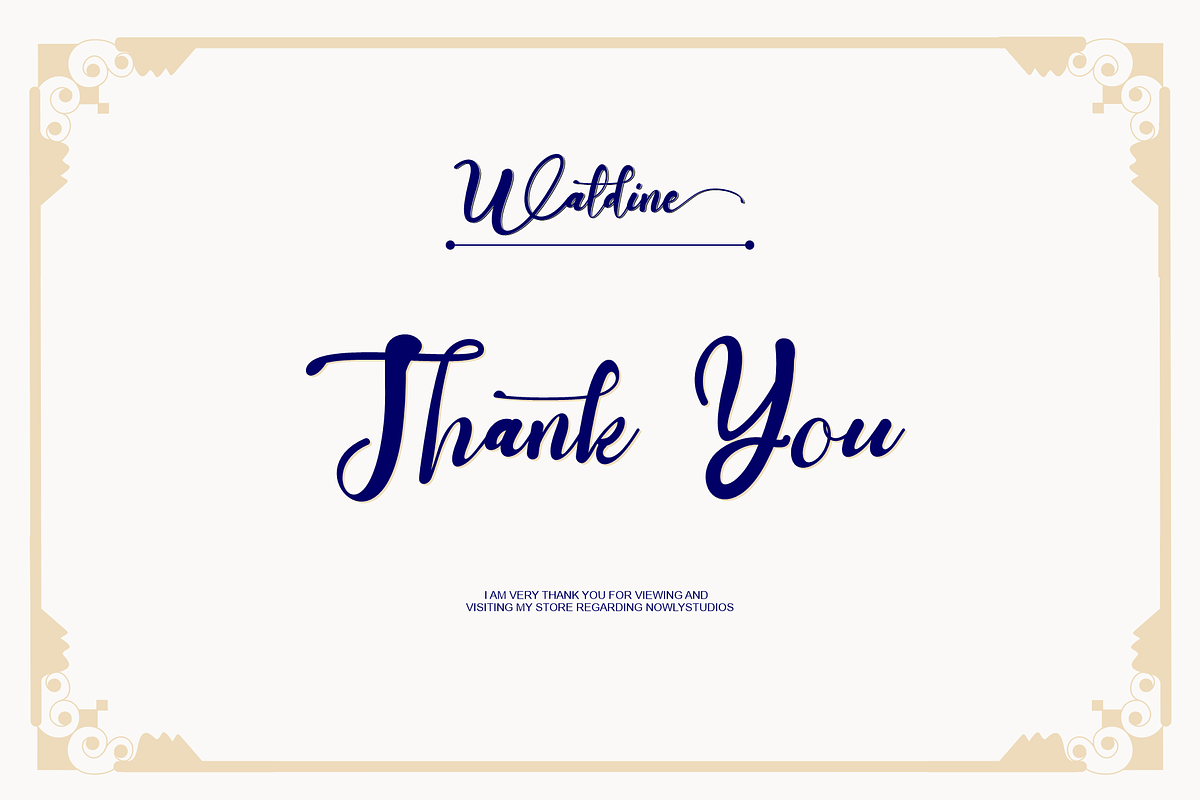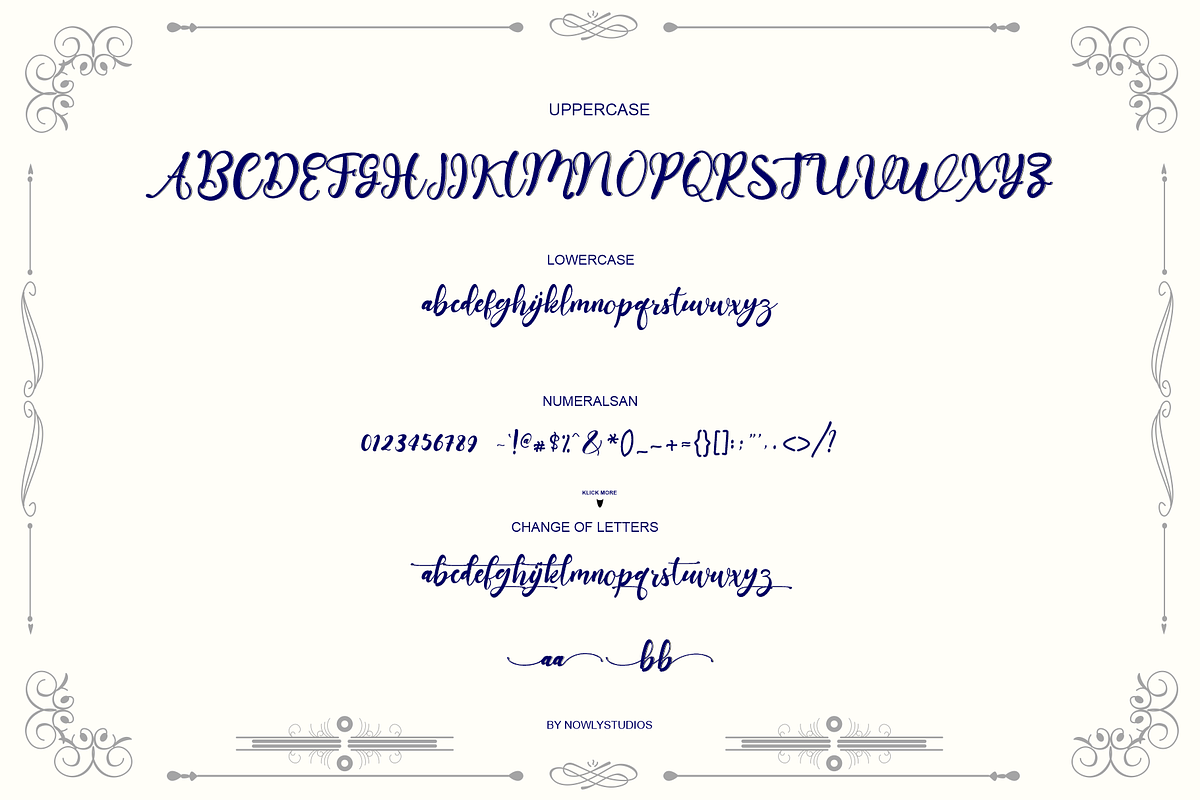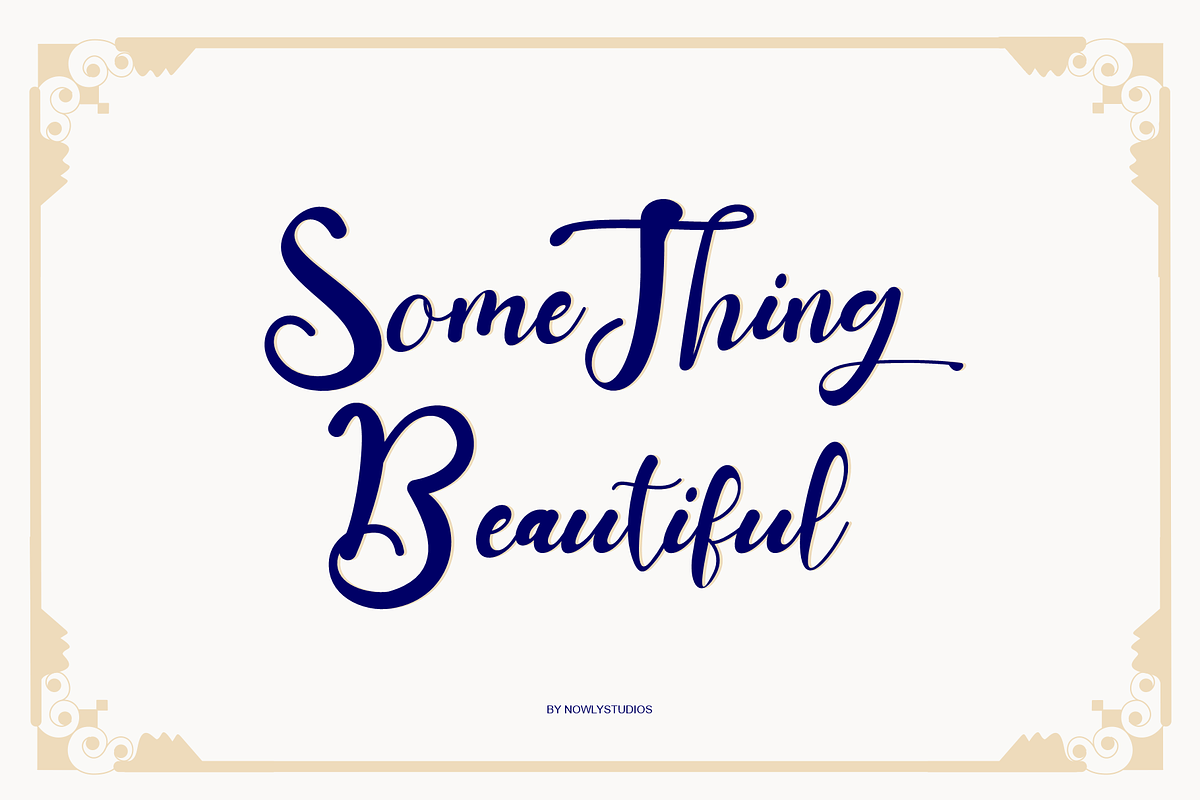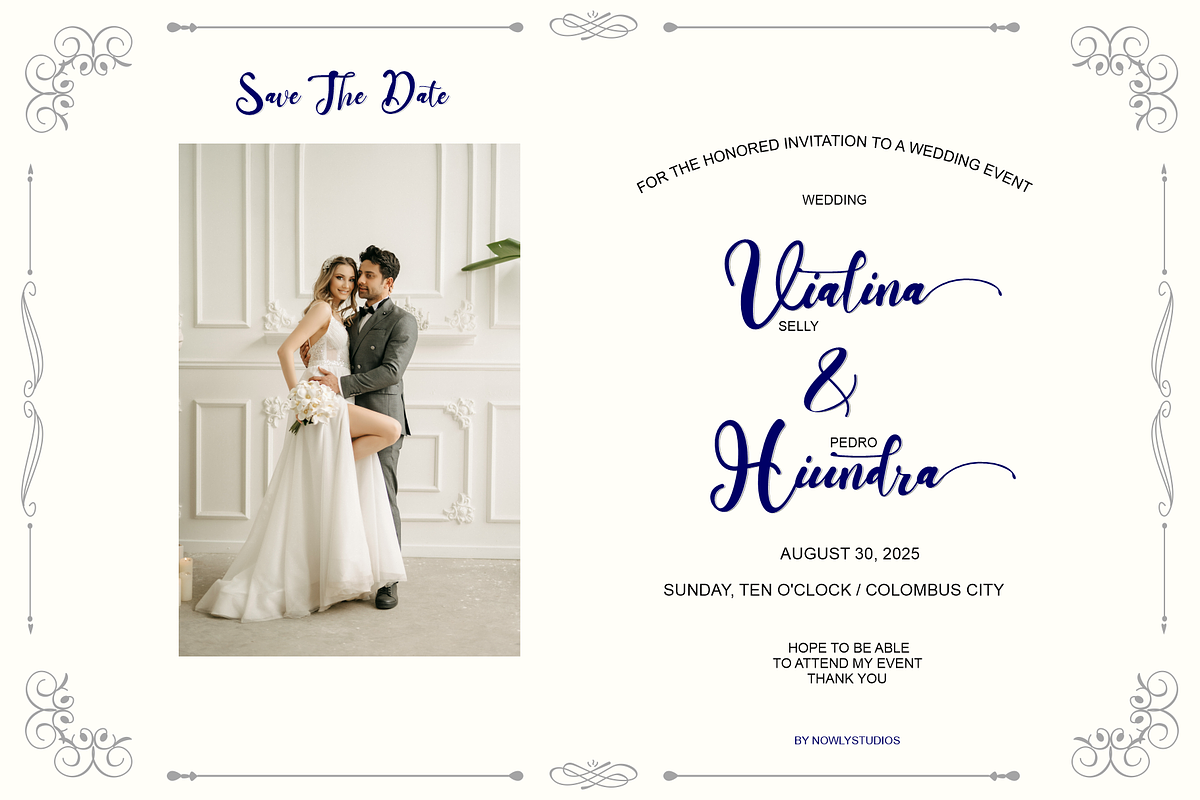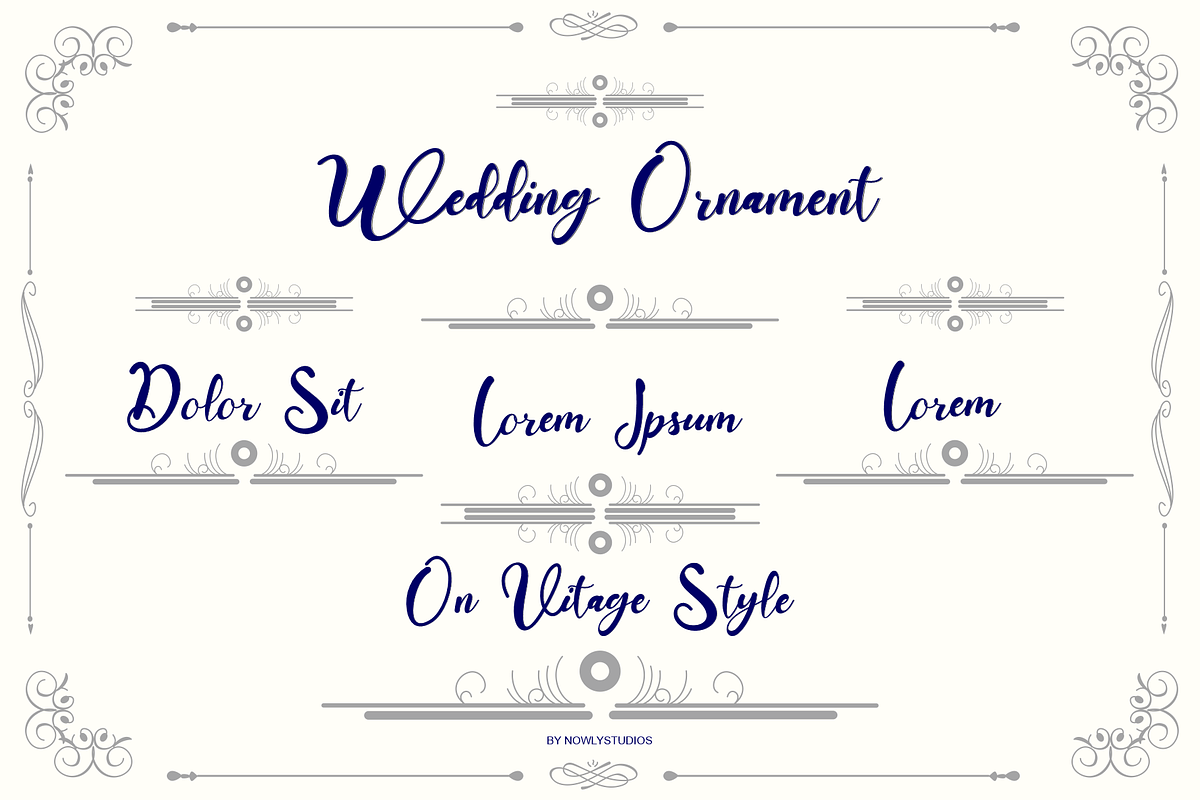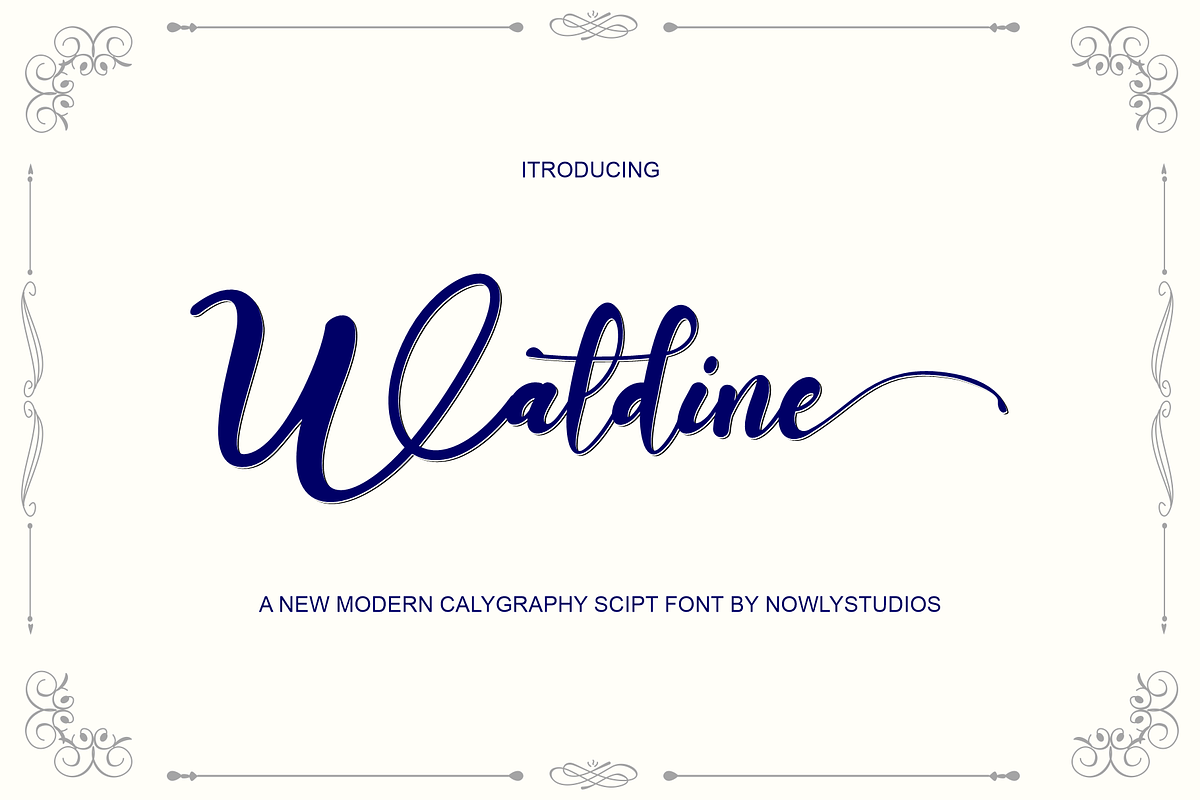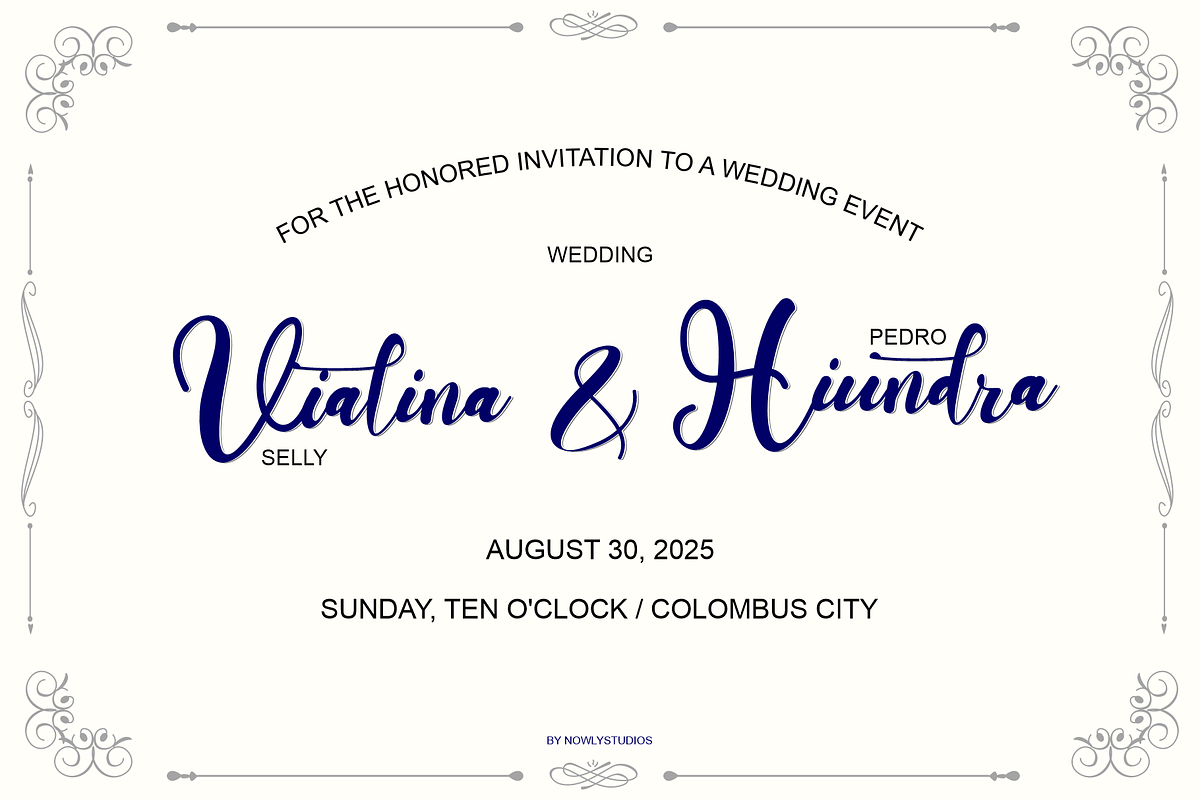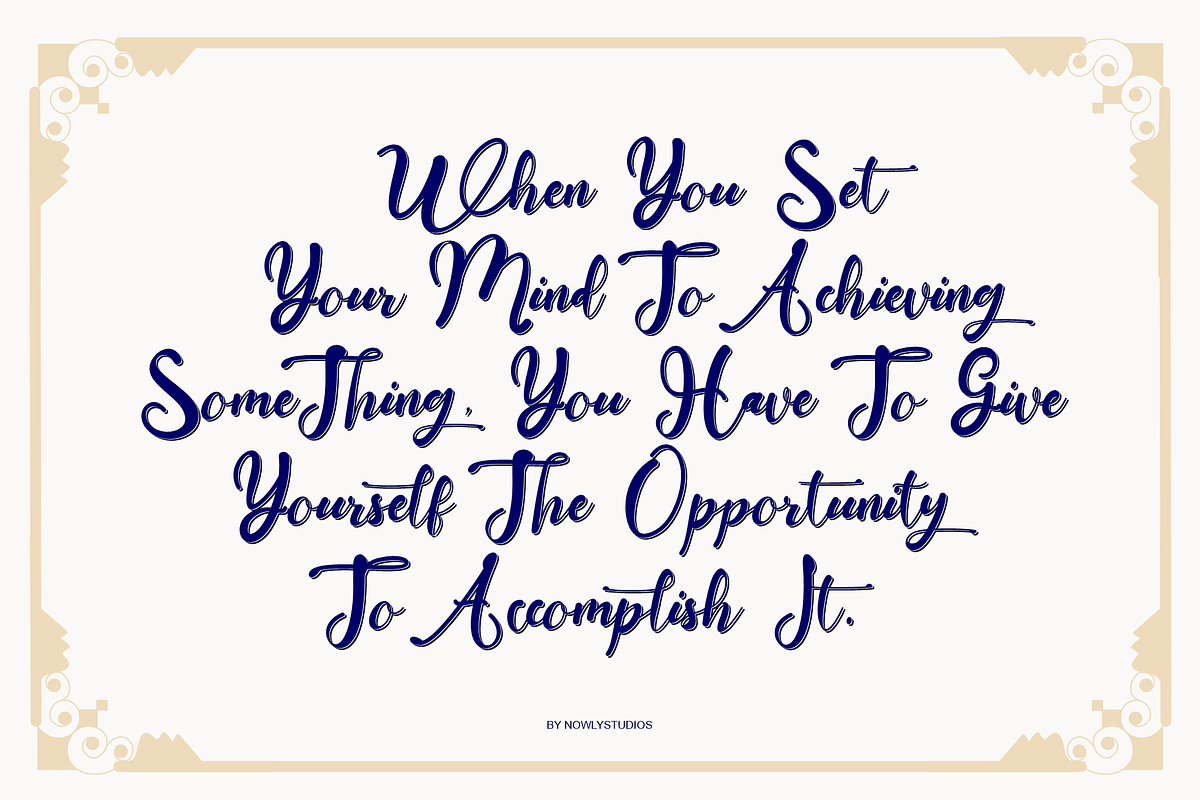
Waldine
Introducing of our new product the name Waldine Script font. Fonts includes uppercase and lowercase letters, numerals, a large range of punctuation, alternate characters, stylishtic set, extrude font and ligatures. You can access the swash.